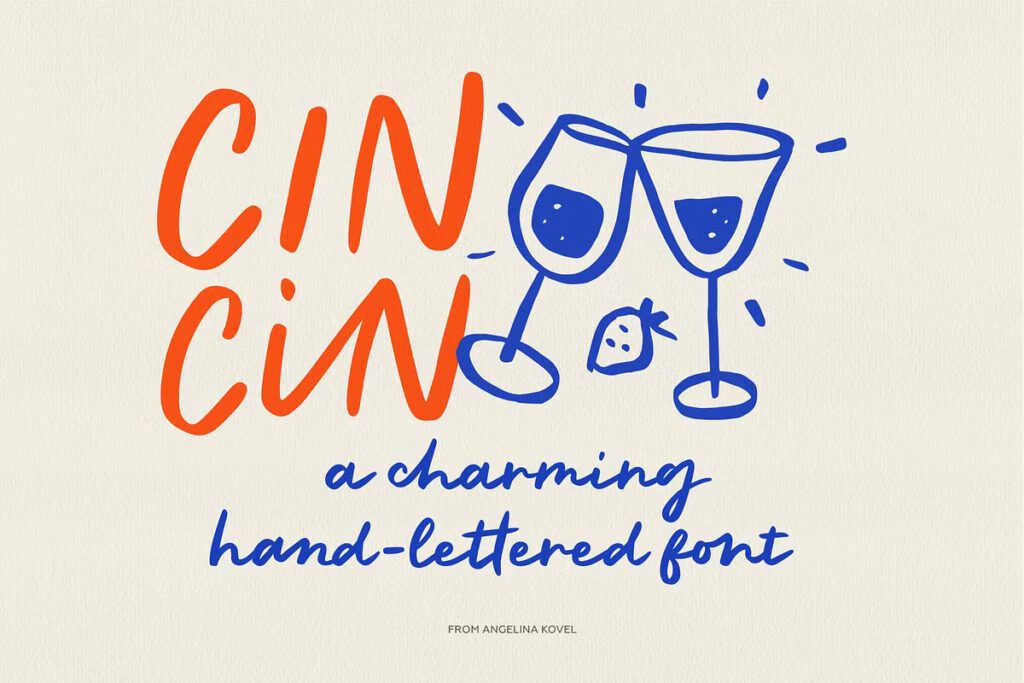
Cin Cin: The Handwritten Font for Fun, Happy Designs
If you’re looking for a playful and inviting typeface, the Cin Cin Handwritten Font is the perfect choice. This whimsical font adds a sense of fun and warmth to any project, making it ideal for everything from book covers to logos and greeting cards. With its joyful vibe and hand-drawn aesthetic, Cin Cin will bring your designs to life with charm and personality.
Why Choose Cin Cin Handwritten Font?
Whimsical and Playful: Cin Cin is designed to exude happiness and fun, making it a great fit for projects that require a lighthearted and engaging feel. Whether you’re working on a kid’s book, a greeting card, or a cheerful logo, this handwritten font will capture attention.
Versatile Use: This font isn’t limited to one specific application. Cin Cin is perfect for a range of design projects including logos, posters, branding materials, and even editorial designs. Its unique handwritten style ensures that each project has a personal and creative touch.
Key Features of Cin Cin Handwritten Font
Customizable Elements: The 72 additional design elements included with the font package can be customized to fit your specific project needs. From decorative icons to playful patterns, these elements will add flair to your work.
Fun and Unique Style: The playful handwritten aesthetic of Cin Cin sets it apart from traditional fonts. Its distinctive and joyful look adds an authentic and approachable feel to your designs, making them memorable.
Who Can Benefit from Cin Cin?
Cin Cin is ideal for graphic designers, illustrators, and creatives who want to add a personal and joyful touch to their projects. Whether you’re designing for print or digital media, this font will make your work stand out and convey a sense of happiness.
If you’re ready to add a playful, handwritten touch to your next project, the Cin Cin Handwritten Font is just what you need. With its versatile applications and extra design elements, it’s the perfect tool for creating cheerful, unique designs.